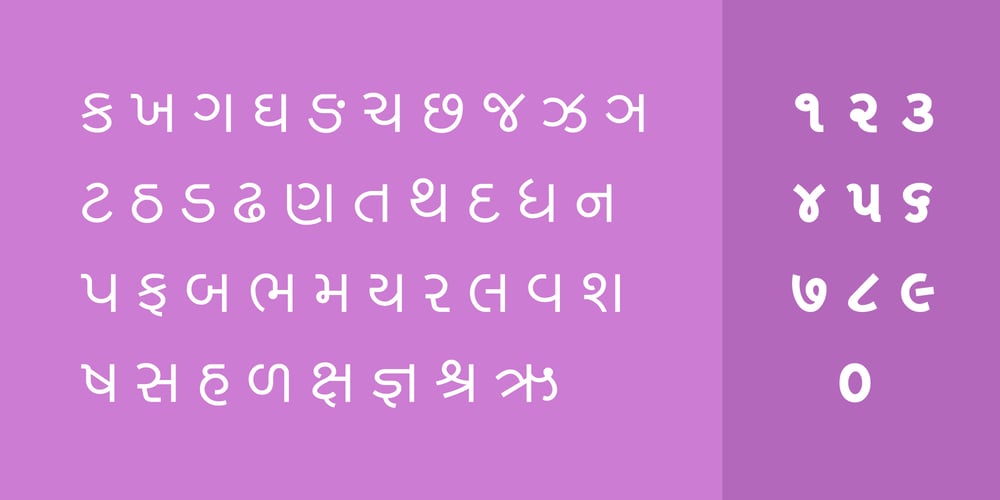
Shree Gujarati 0768
Shree Gujarati 0768 font
Shree Gujarati 0768 Font Family was designed by Modular Infotech and published by Modular InfoTech. Shree Gujarati 0768 contains 10 styles and family package options. ShreeGuj0768 is a serif font for newspapers and magazines. It is mainly used for novels and magazines. This font family has four weights: light, Regular, Demibold, and Black. It has a maximum conjunct for printing good-looking books and magazines. It is also used to produce novels and textbooks. Because of its equally thick weight, many prefer this font for printing Text for wedding cards and invitations. This font has a high level of readability for small point sizes.